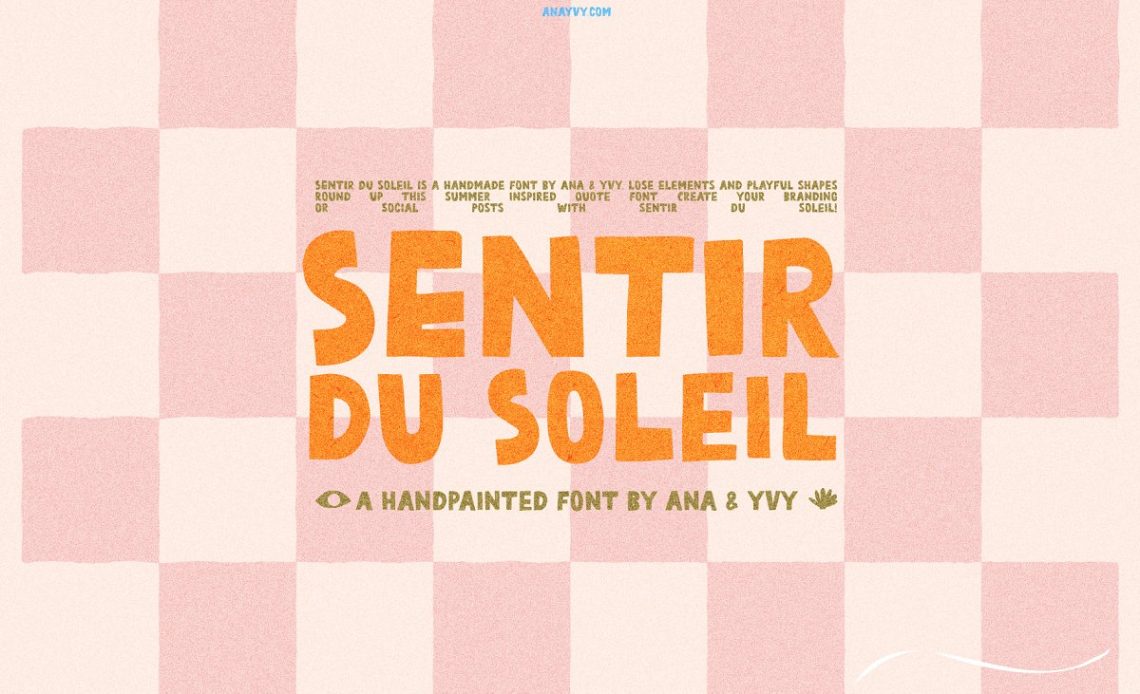
Introducing Sentir Du Soleil Cutout Marker Font - the perfect addition to your font collection! Ana & Yvy have created a playful all-caps font that is sure to catch the eye of anyone looking for the Best Fonts for Cricut Marker.
The unique cutout style of this font adds a personal touch to any project, making it perfect for greeting cards, quotes, social media posts, posters, playful branding, and so much more! The best part is that Sentir Du Soleil comes with both uppercase and lowercase letters, allowing you to mix and match for a truly custom look.
With 89 graphic elements included in PNG & EPS formats, this font is the ultimate tool for creativity. Whether you're designing a new logo or creating custom graphics for your social media, Sentir Du Soleil has got you covered.
But what really sets this font apart is its ability to evoke emotion. With its playful design, Sentir Du Soleil brings a sense of joy and whimsy to any project. It's the perfect font for those looking to add a touch of personality to their work.